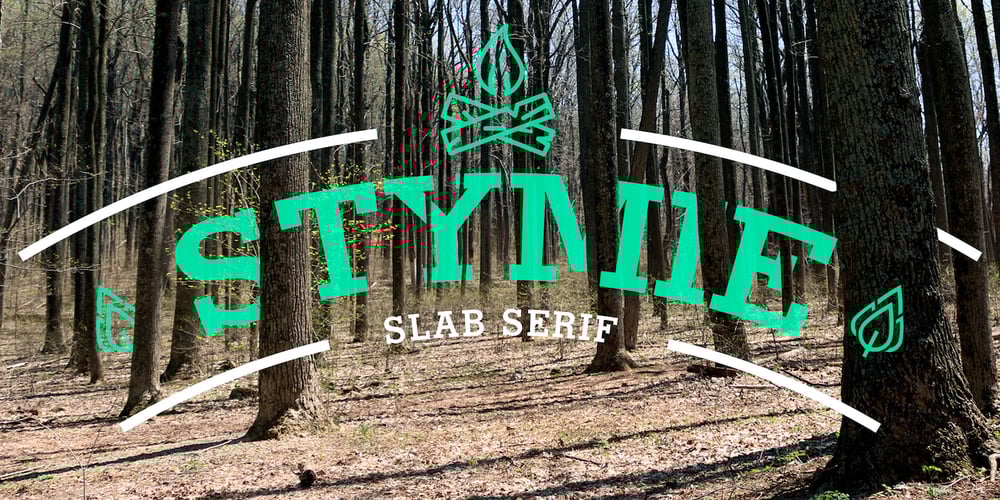
Stymie
Stymie font
Stymie Font Family was designed by Gerry Powell, Morris Fuller Benton, Sol Hess and published by Bitstream. Stymie contains 8 styles and family package options. Morris Fuller Benton’s 1931 design, reworking the model of Memphis for ATF.